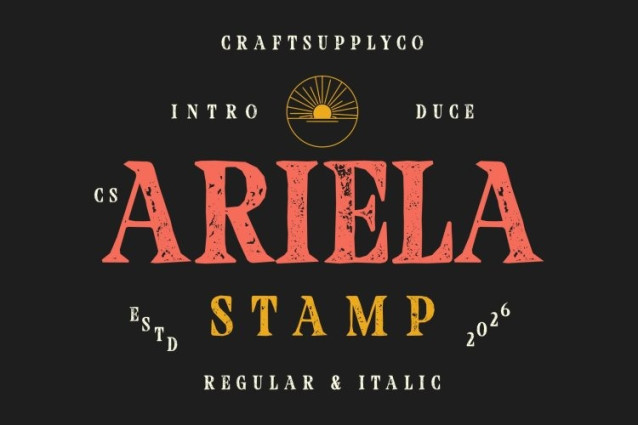
CS Ariela Stamp Font
CS Ariela Stamp Font This is a modern classic serif font that thoughtfully blends traditional serif craftsmanship with a clean, contemporary sensibility. Its neatly defined serifs and well-balanced contrast between thick and thin strokes create a strong yet elegant foundation. The structured and symmetrical letterforms deliver a refined visual rhythm, making the font feel stable, dignified, and timeless.
Sophisticated Design with Credible Presence
Designed to communicate professionalism and trust, this font carries a formal and authoritative tone. Its classic proportions evoke heritage and reliability, while subtle modern refinements keep the font relevant for today’s design needs. This balance allows it to feel serious without appearing outdated perfect for content that demands clarity, credibility, and respect.
Stamped Texture for Authentic Character
The stamped style introduces a lightly textured, tactile finish that adds depth and authenticity to the refined serif structure. This subtle roughness enhances the font’s character, giving it a sense of tradition, print heritage, and handcrafted quality without compromising elegance or legibility.
Ideal for High-End and Formal Applications
This is well suited for projects that require a polished and trustworthy visual identity. It excels in academic publications, editorial layouts, book covers, certificates, corporate branding, legal materials, and historical or institutional designs. Its timeless elegance and professional tone make it a reliable choice for conveying authority, sophistication, and enduring value.